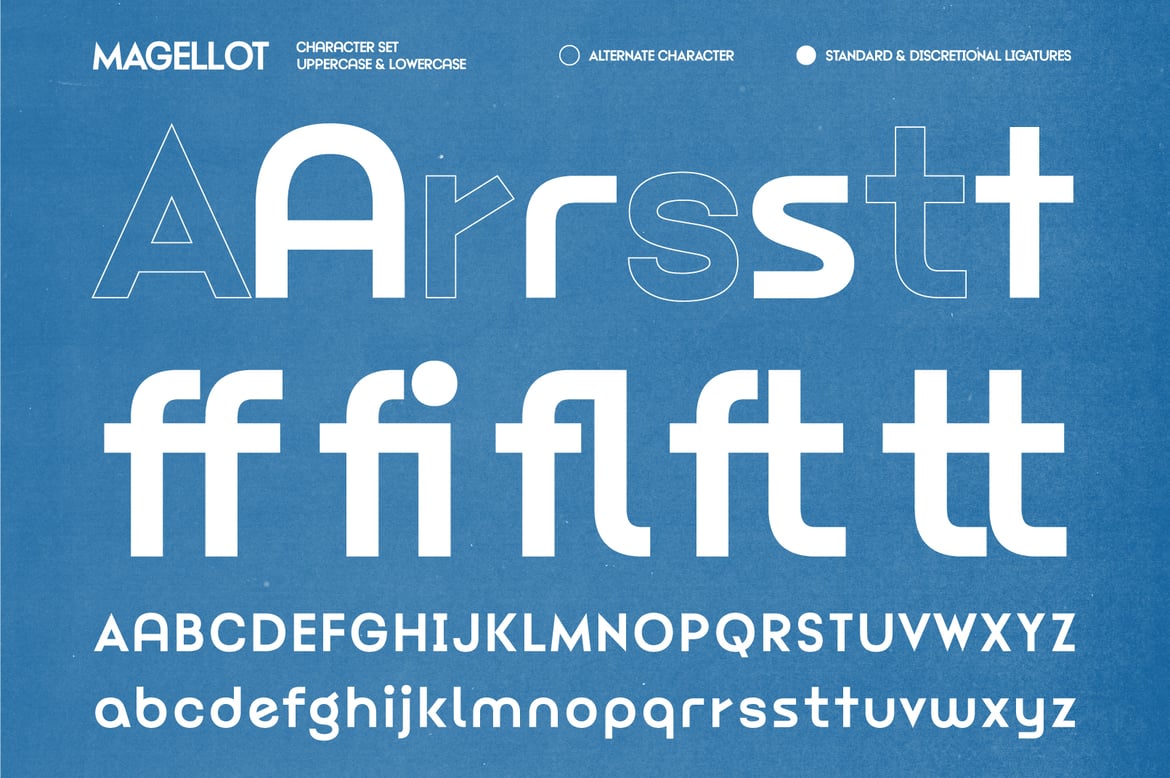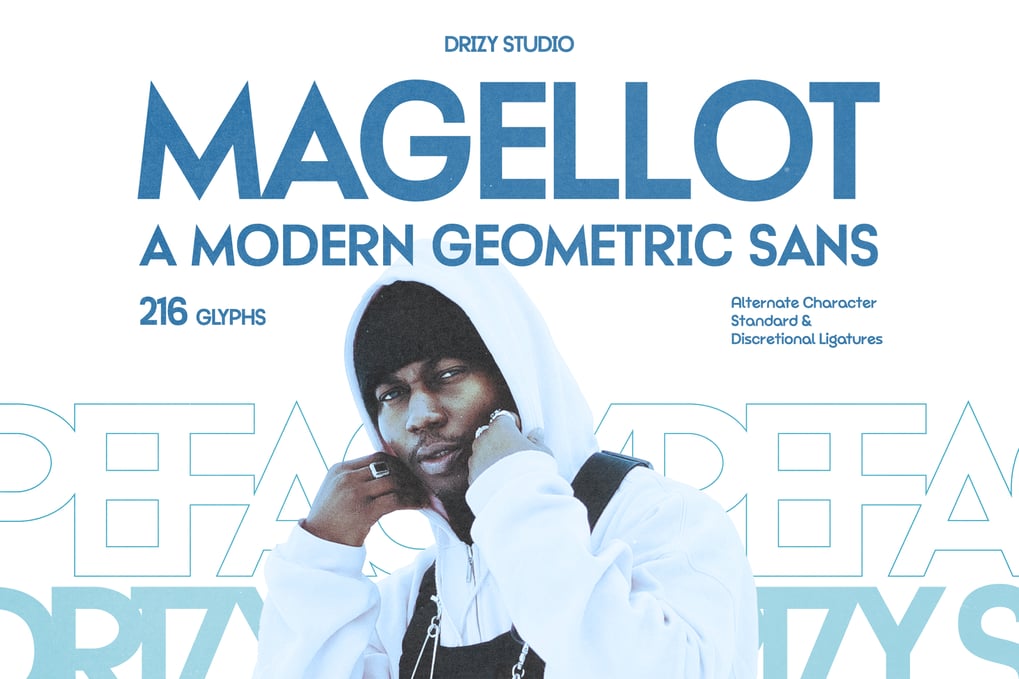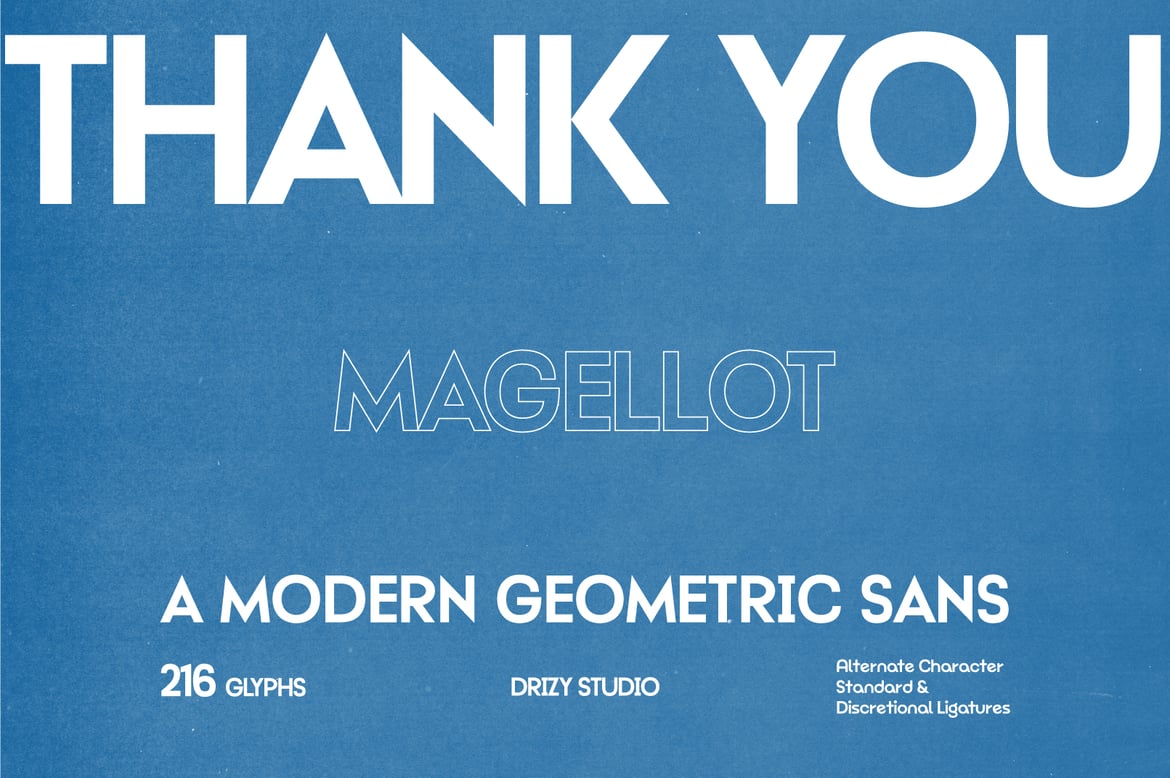
Magellot – Modern Geometric Sans Font
Magellot features:
* Character Set (Uppercase & Lowercase)
* Punctuation & Numbers
* Alternates “r, s, t”
* Standard & Discretional Ligatures